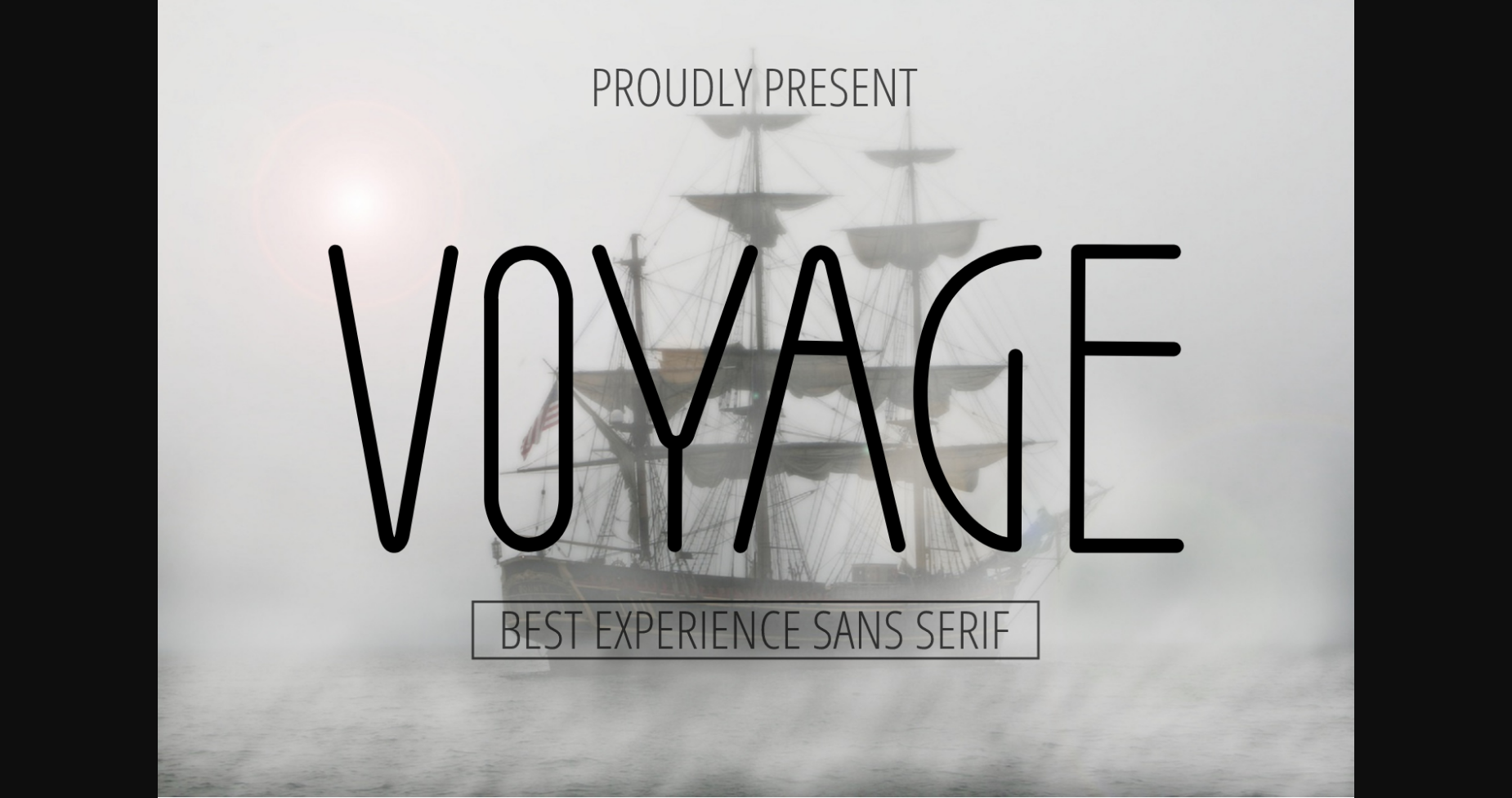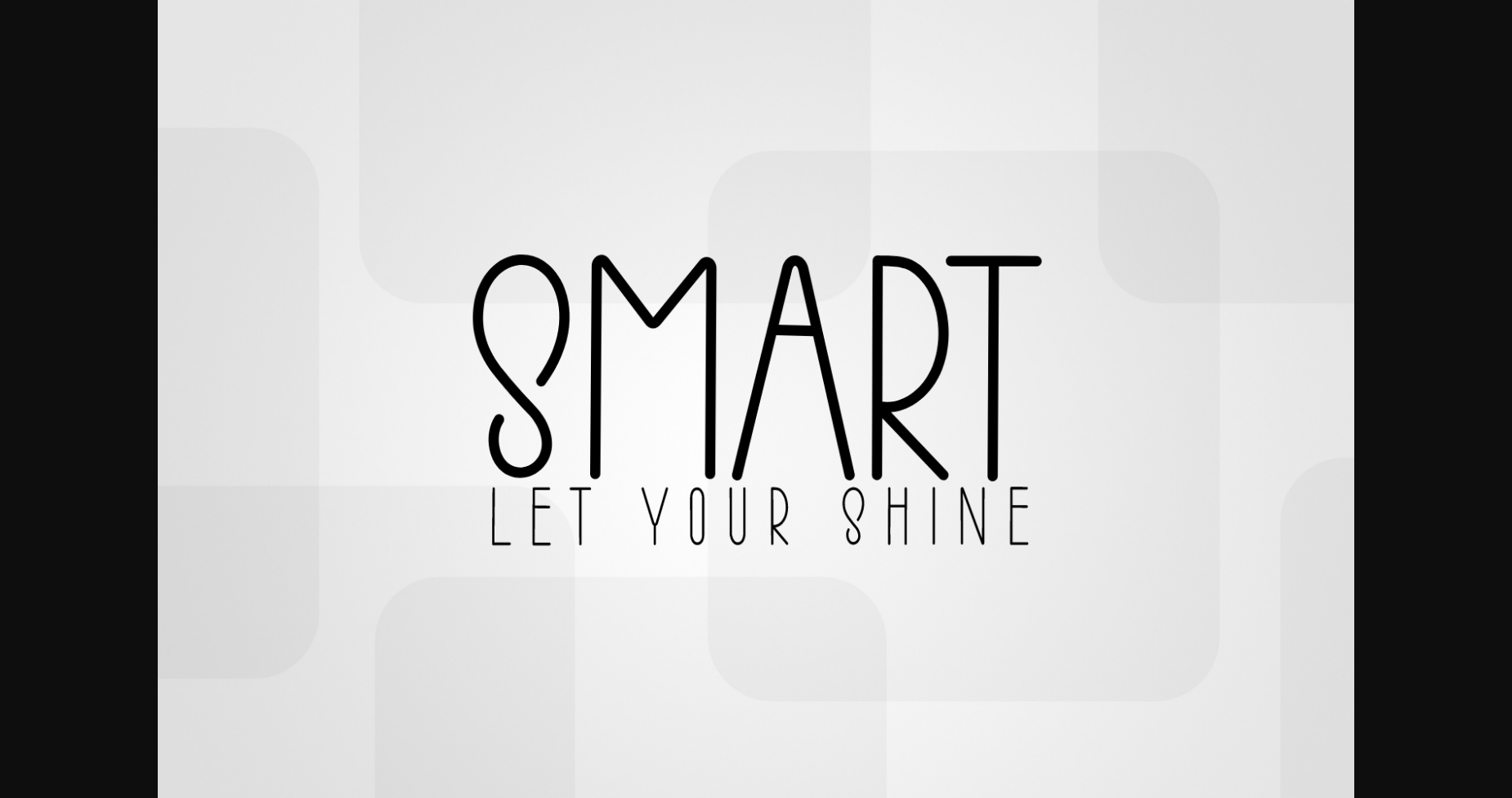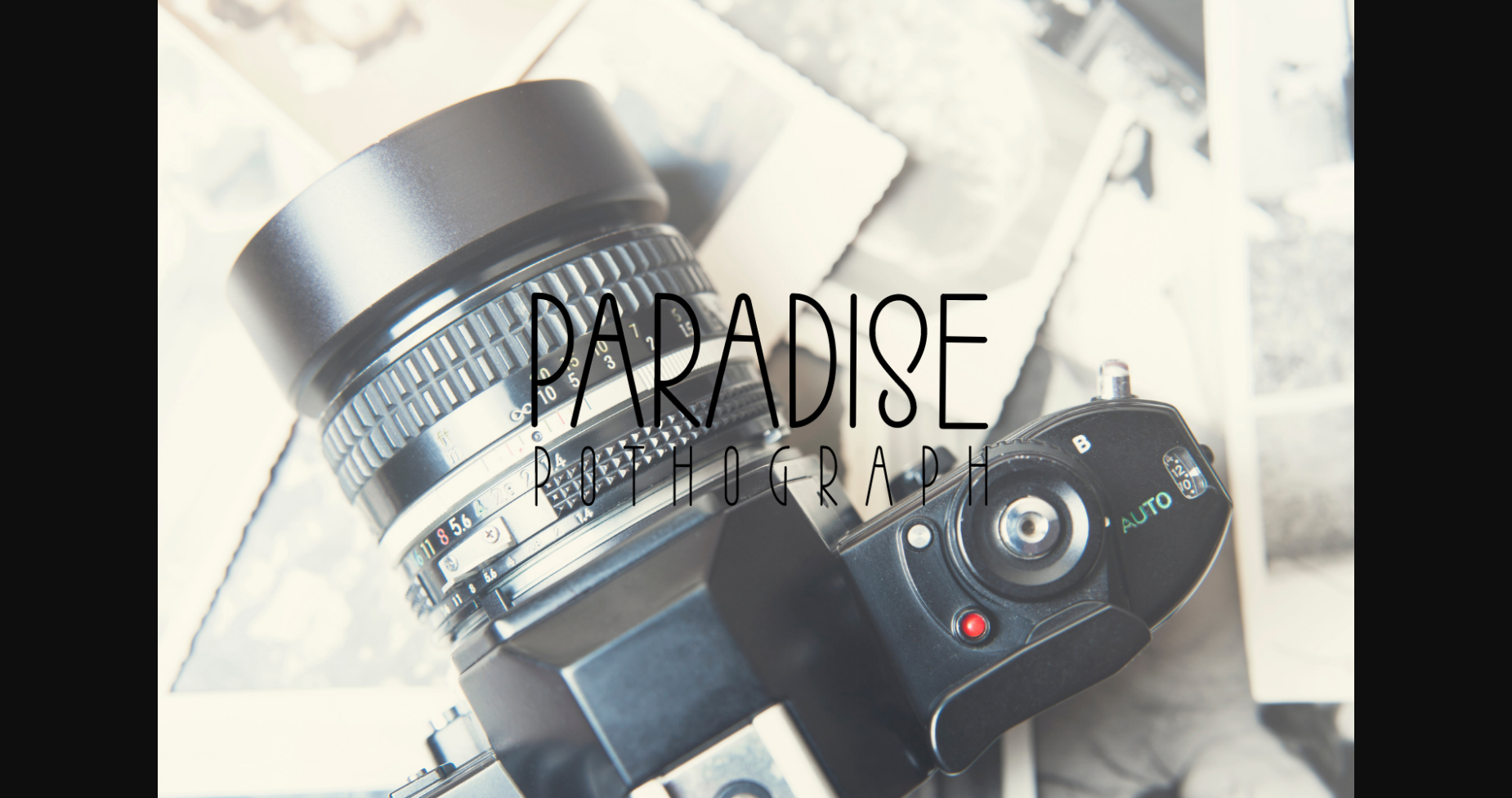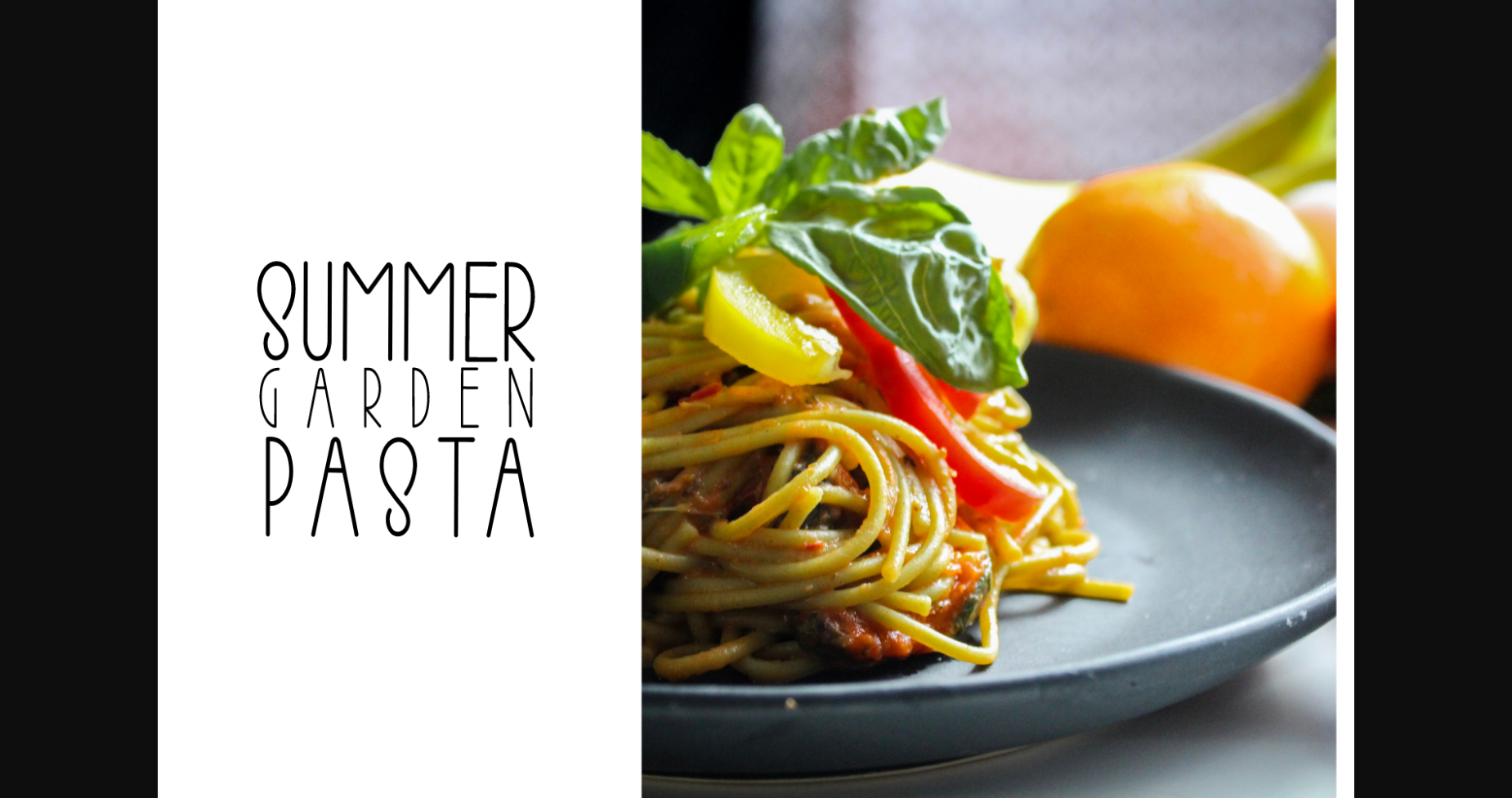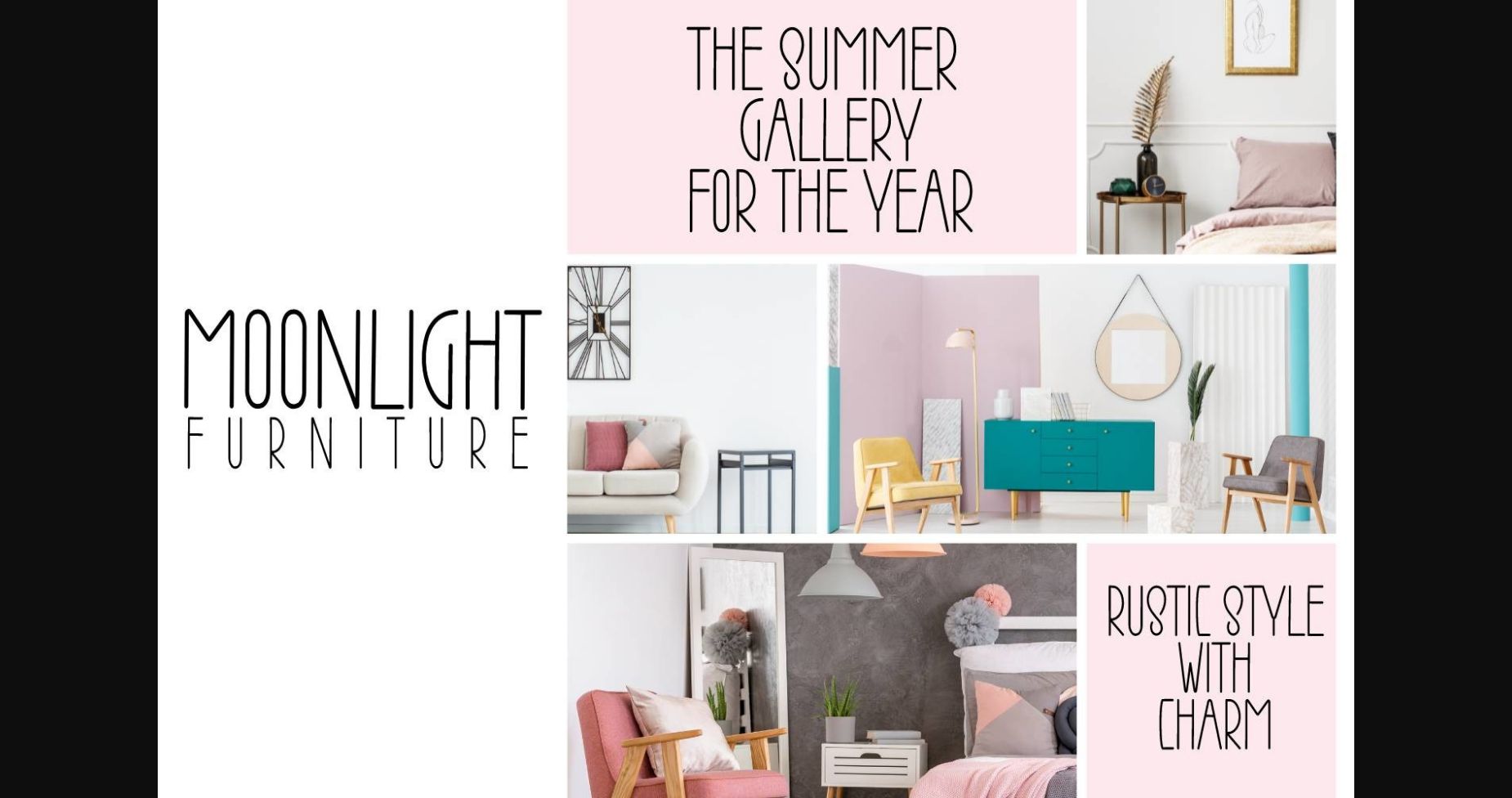
Voyage Font
About Voyage Font
Voyage is a thin, tall and wide lettered sans serif font. It can easily be matched to an incredibly large set of projects, so add it to your creative ideas and notice how it makes them stand out!